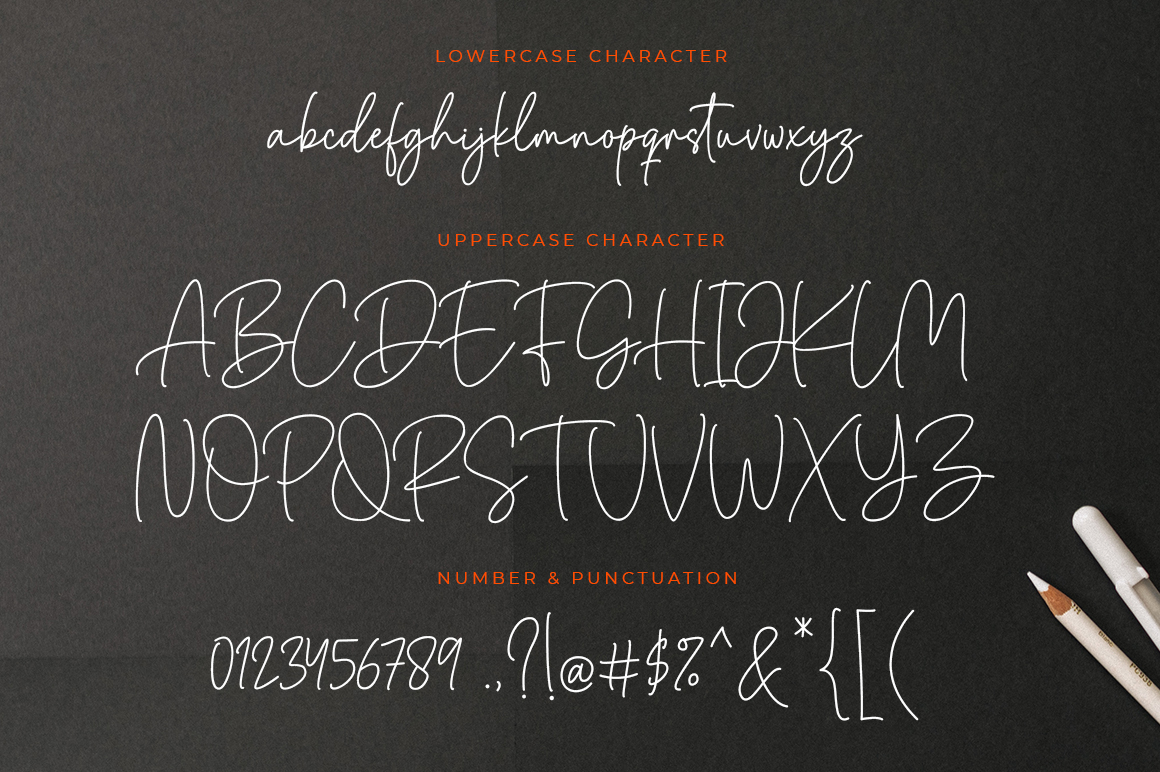
Bellinda Christina Handwritten Font
This font is a sweet and cool script that easily combines legibility and authenticity! This font is suitable for use on photography, business cards, weddings, t-shirt designs, logos, magazines, quotes, fashion, watermarks, invitations, signatures.